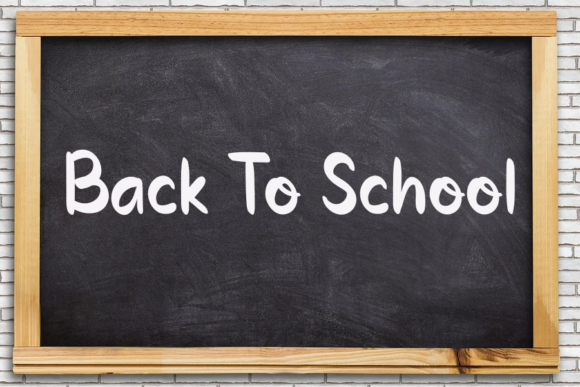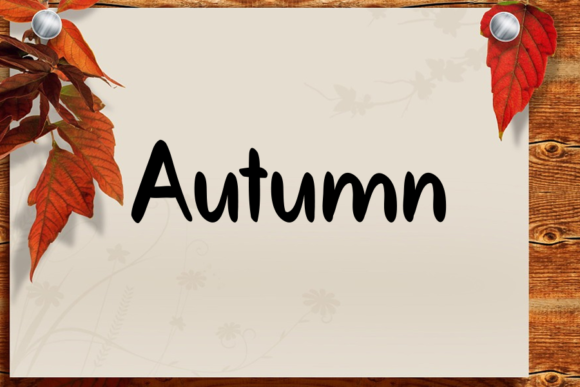
Teacher to School Font
db-ku.com - Script & Handwritten -- Teacher to School is a sweet and friendly handwritten font. Its natural and unique style makes it incredibly fitting to a large pool of designs. The only limit is your imagination!